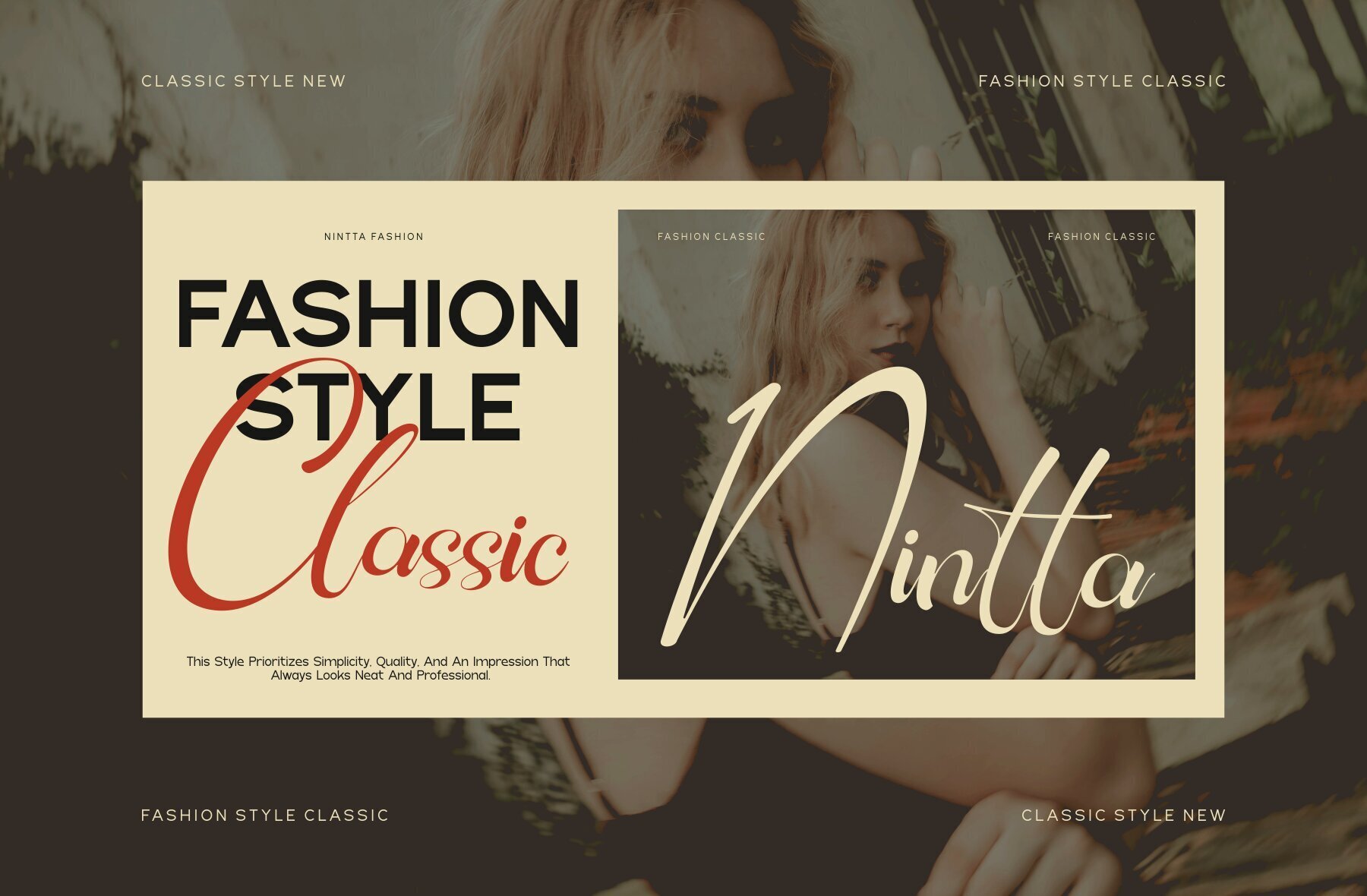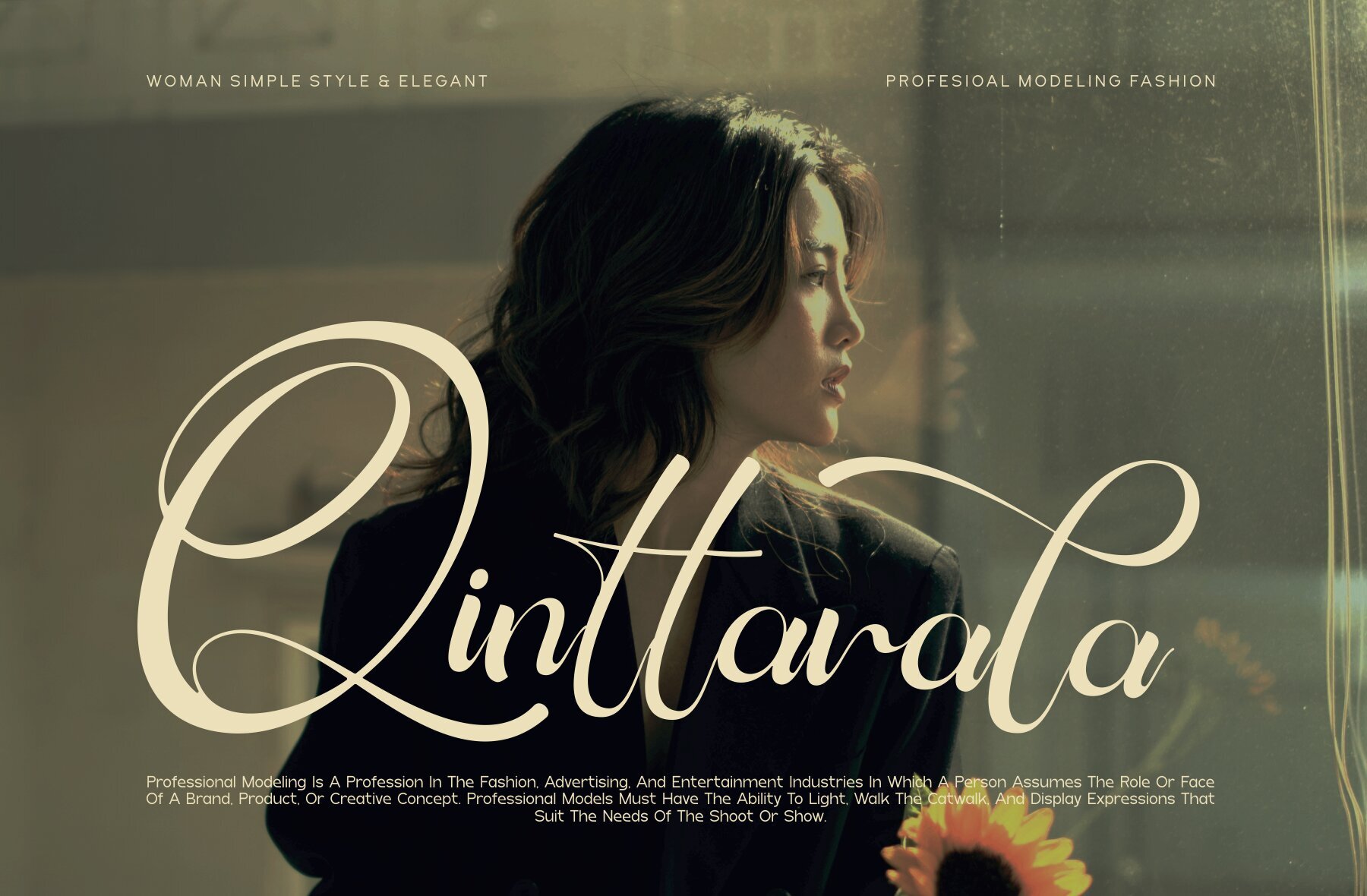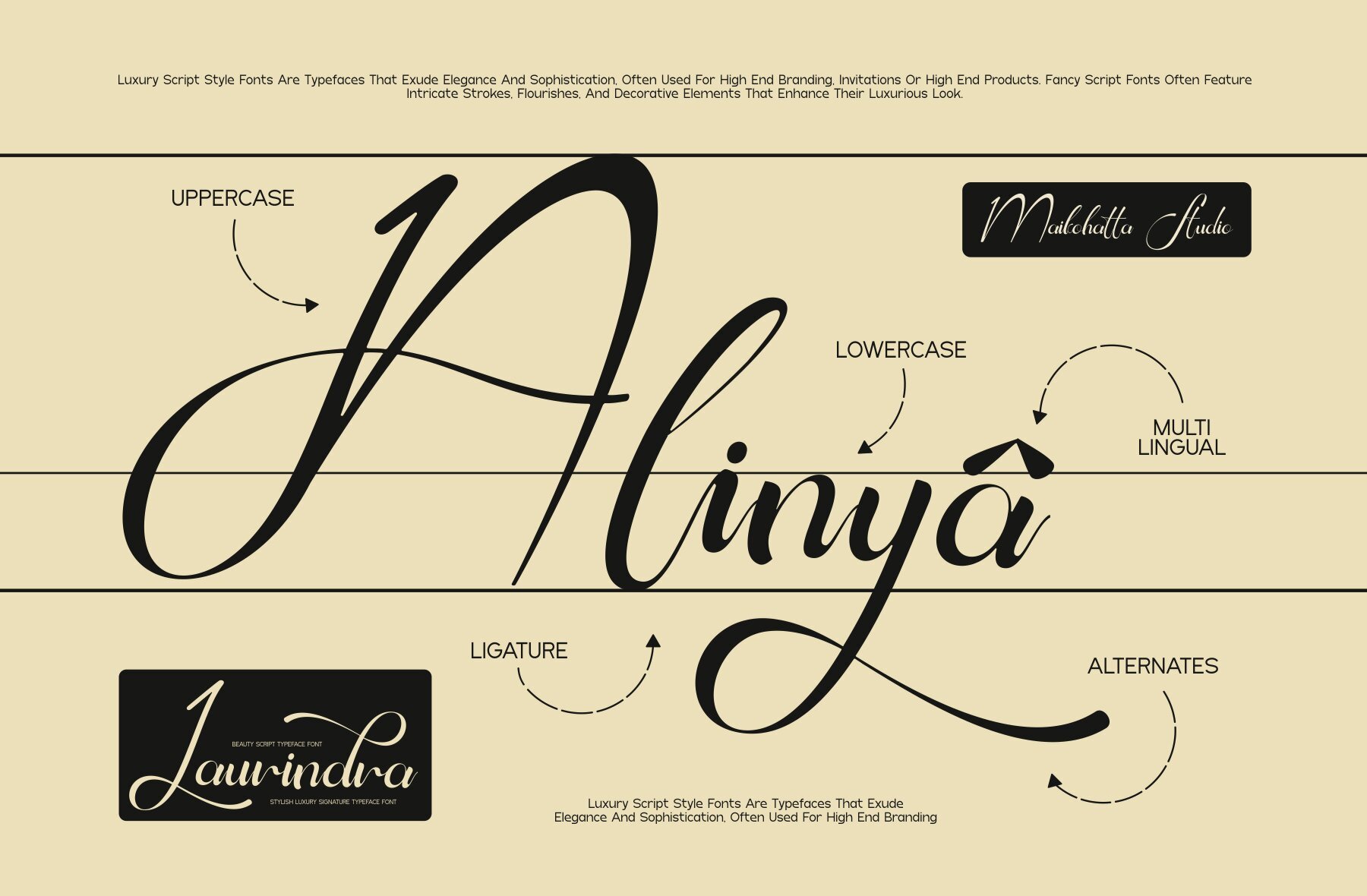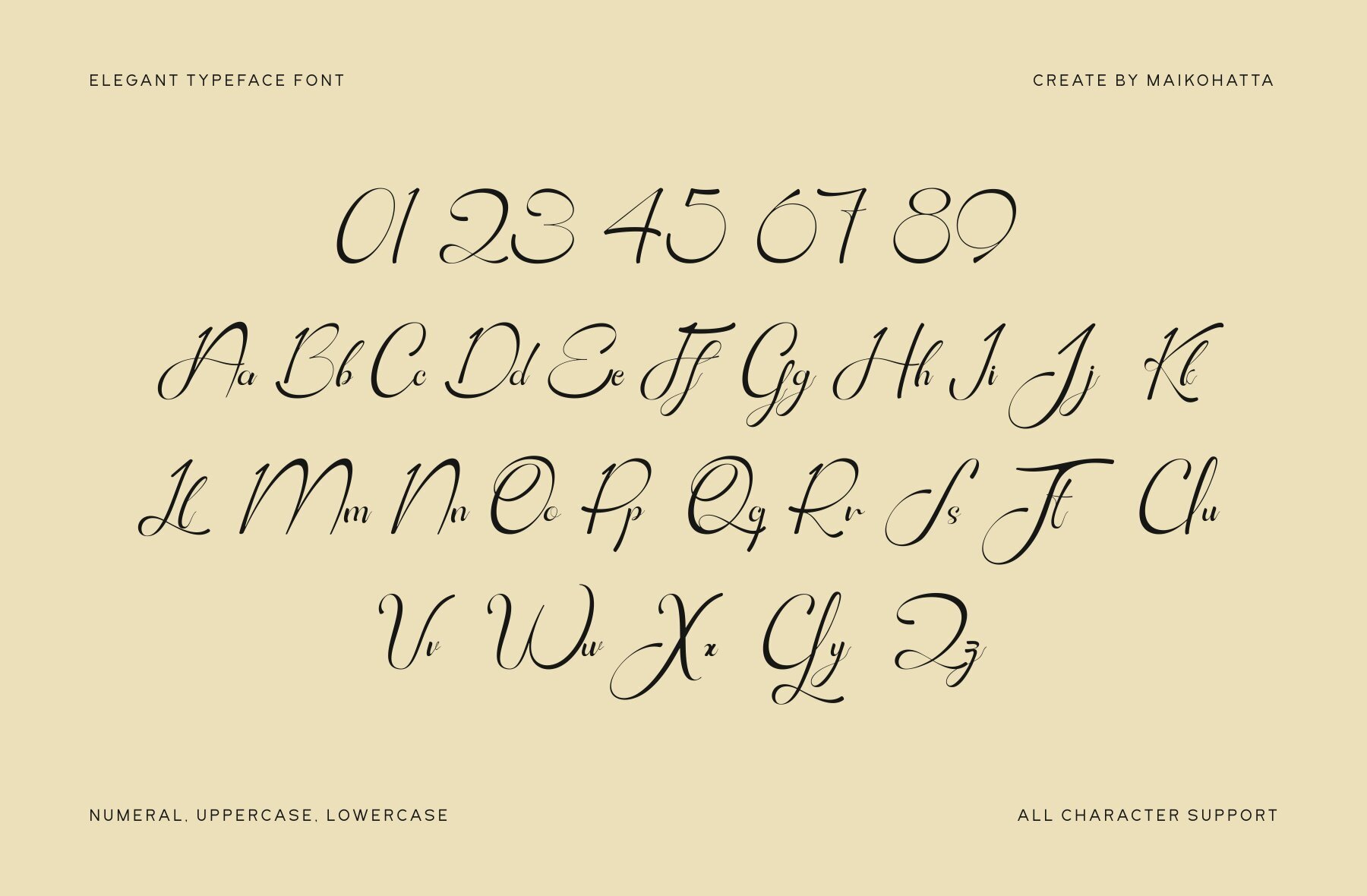
Laurindra Font
Laurindra
This elegant script font features intricate flourishes and looping swashes that exude sophistication and style. Ideal for formal invitations, luxurious branding, and artistic projects, this typeface adds a touch of refined elegance to any design. Its ornate and fluid letterforms are perfect for creating a memorable visual impact.